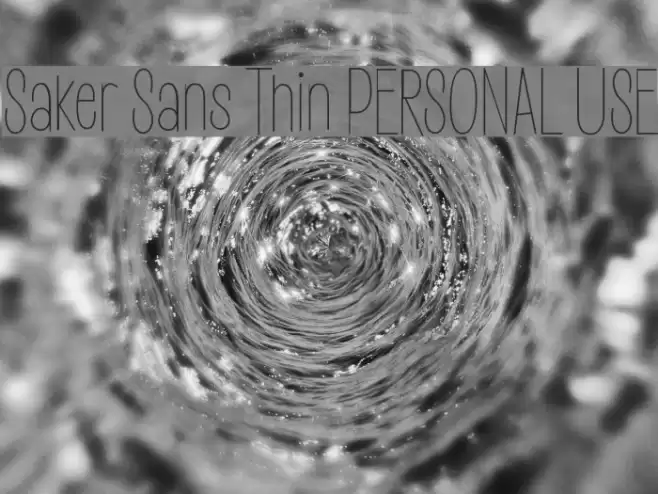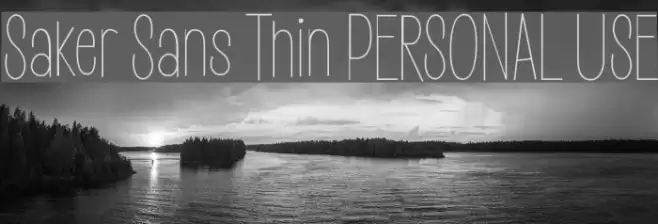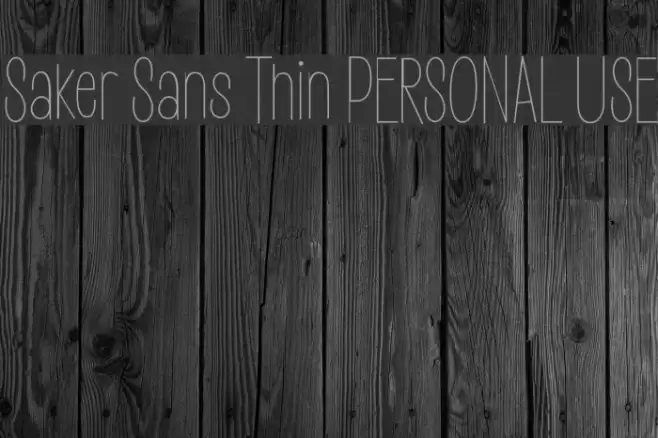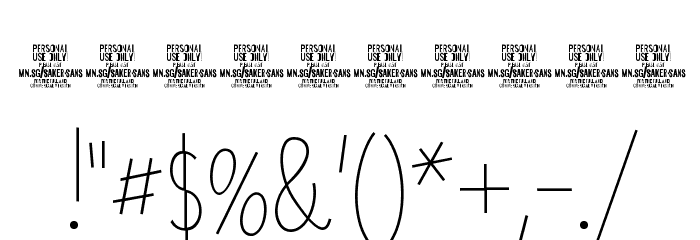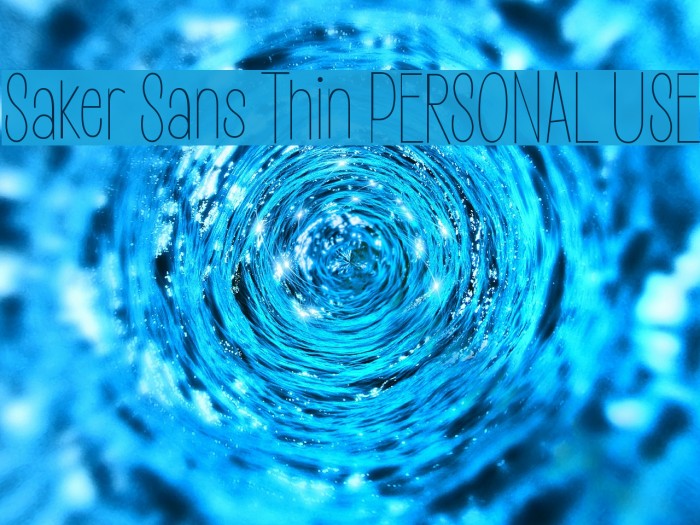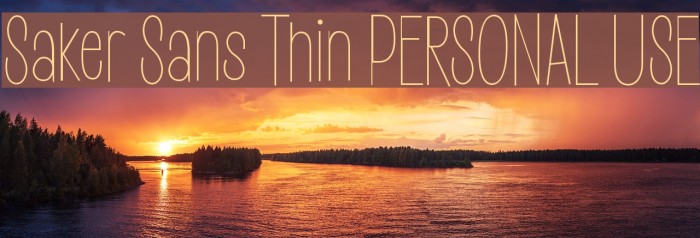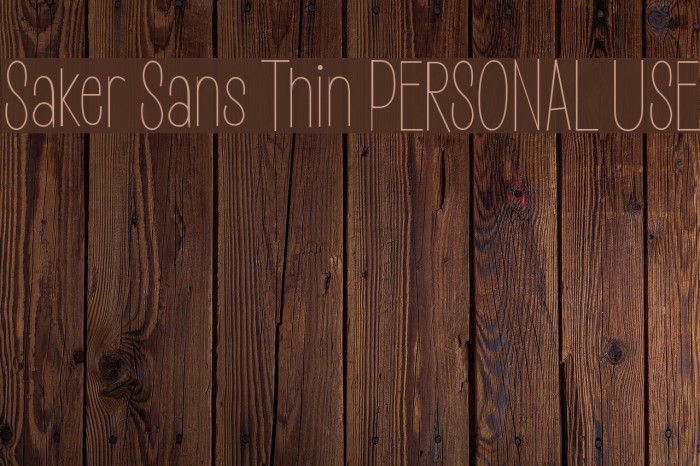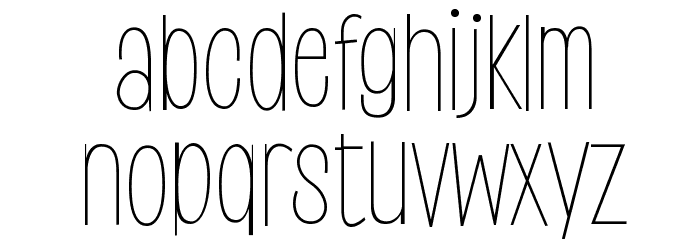
Saker Sans Thin PERSONAL USE Font
Saker Sans Thin PERSONAL USE Description
This font features a sleek and modern design with ultra-thin strokes, giving it a minimalist and elegant appearance. The characters are tall and narrow, emphasizing verticality and creating a sense of sophistication. The clean lines and lack of serifs contribute to its contemporary style, making it suitable for a variety of design applications. The uppercase and lowercase letters maintain a consistent height, while the numerals and special characters blend seamlessly with the overall aesthetic. This font is ideal for projects that require a refined and understated look.
A sleek, ultra-thin sans-serif font with a modern and minimalist design from Uncategorized fonts.
- Proposed Projects: Ideal for fashion magazines, luxury branding, minimalist posters, and modern web design.